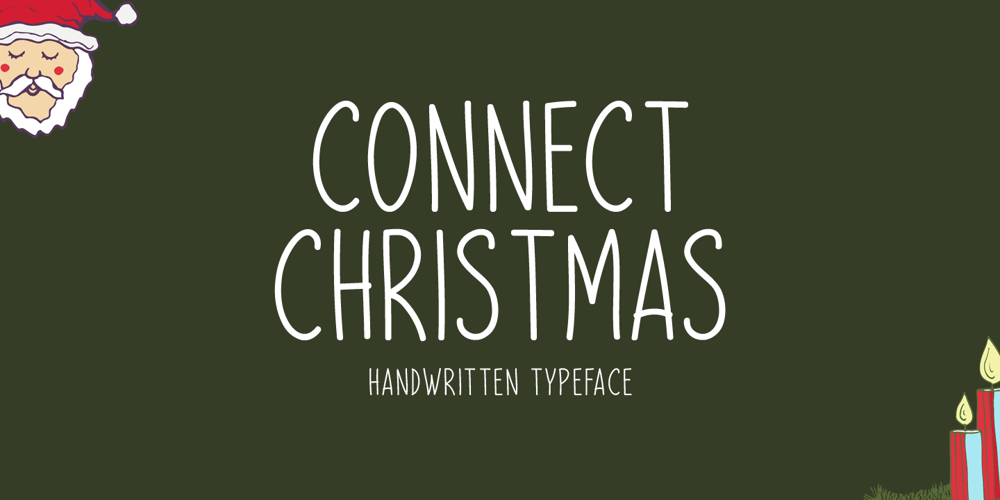
Connect Christmas Font Family was designed by Md Shohail Bhuian and published by Seemly Fonts. Connect Christmas contains 1 styles and family package options. Connect Christmas is a clean and simple lettered handwritten font that can be used for all chalkboard quotes or teaching material! Its authentic look will add a personal and realistic feel to your designs.